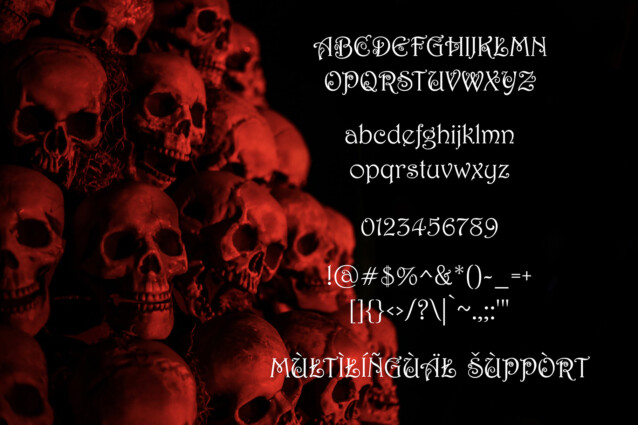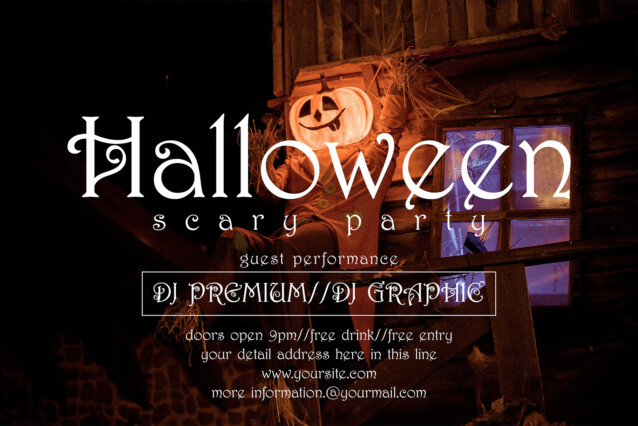
Occult Overture Font is a simple and display typeface. So perfect for you who needs a typeface for logo designs, magazine, social media, brochure, and many more.